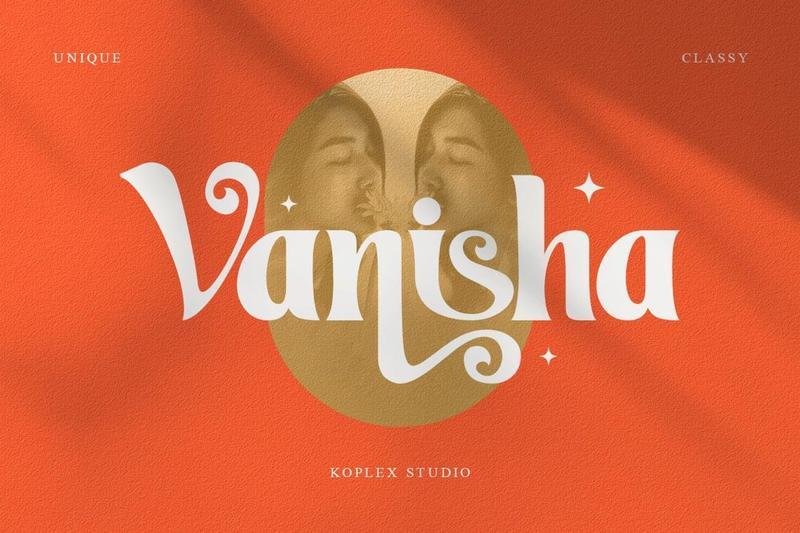
**Vanisha Font** is a sophisticated modern serif display typeface crafted to bring luxury, elegance, and timeless beauty to your creative projects. Inspired by the graceful aesthetics of Art Nouveau typography, Vanisha features stunning ligatures, decorative alternates, and refined letterforms that instantly elevate any design.
Designed for designers, creatives, and brands seeking a premium visual identity, Vanisha combines classic serif sophistication with contemporary styling. Its distinctive curves and stylish details make it ideal for high-end branding and editorial applications.
**Perfect For :**
*Luxury Branding
*Logo Design
*Fashion Brands
*Cosmetic Packaging
*Perfume Labels
*Wedding Invitations
*Editorial Design
*Magazine Headlines
*Social Media Graphics
*Product Packaging
*Posters & Advertising
*Book Covers
*Website Headers
*Boutique Branding
*Beauty & Lifestyle Brands
**Vanisha Font** is an excellent choice for designers looking for an elegant font, luxury font, branding font, logo font, wedding font, headline font, poster font, or cosmetic font. Whether you’re creating a premium logo, a fashion campaign, or a sophisticated packaging design, Vanisha delivers a refined and memorable typographic experience.